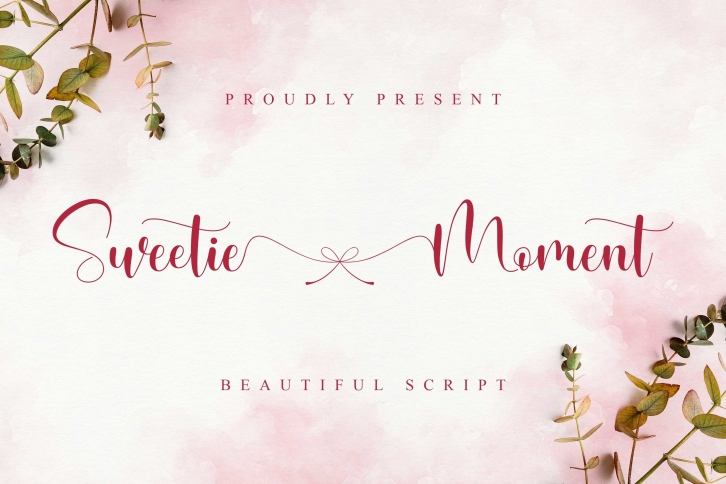
Sweetie Moment is a gorgeous font that was realeased on November 10, 2020. The font can be used in many style contexts and design environments. Perfect for invitations, magazines, websites, logos, and more! It was designed by Almarkha Type and the file size is 6.88 MB. Thanks for checking out this font!